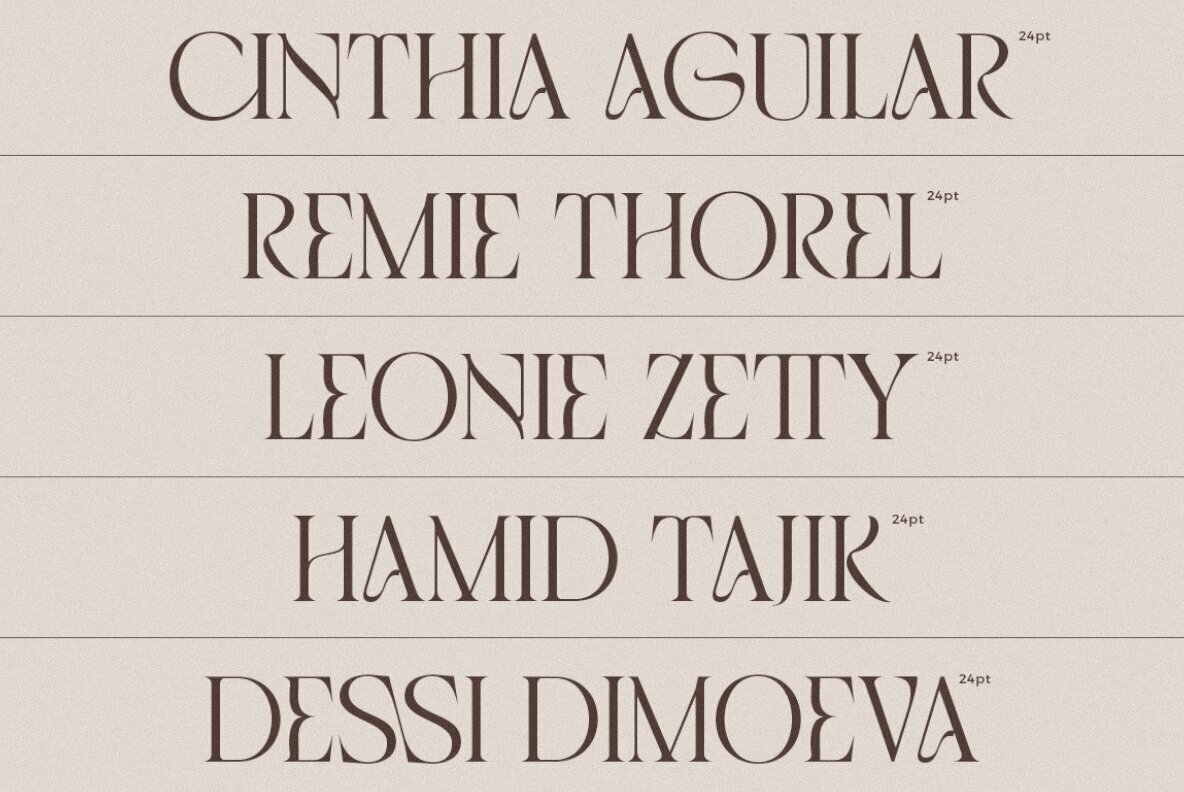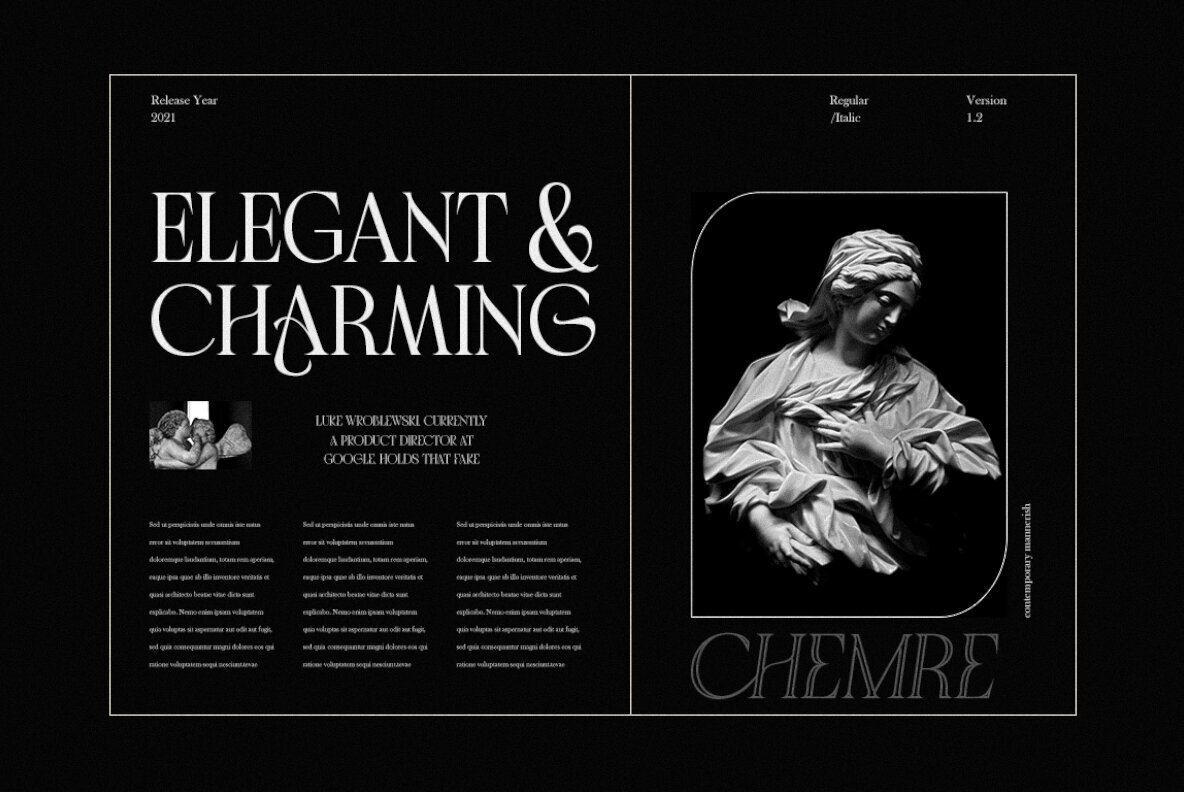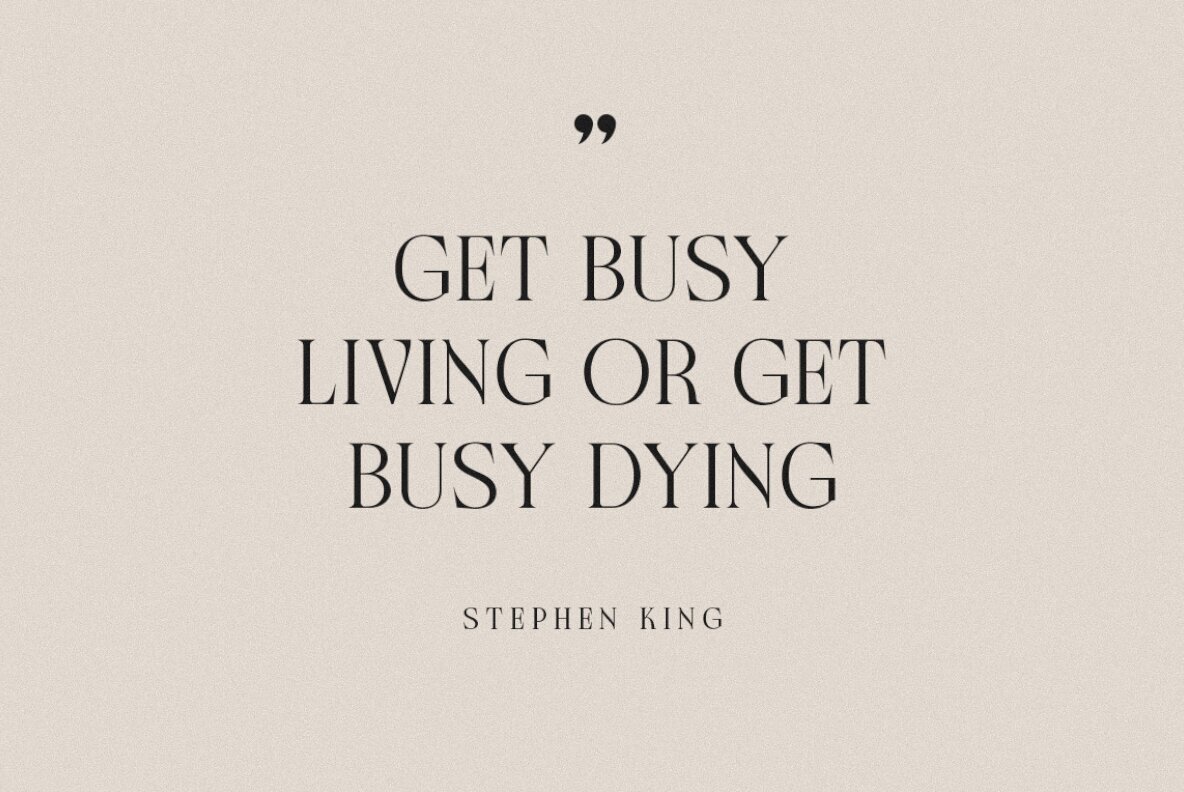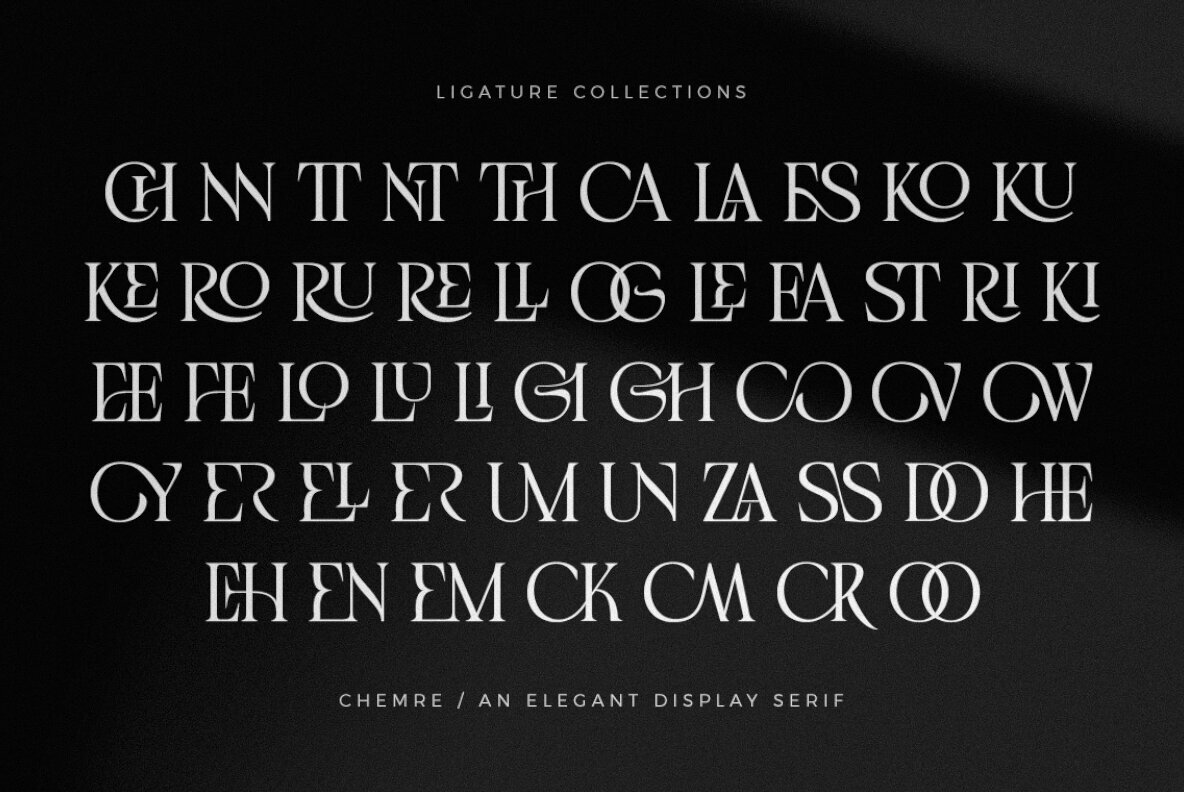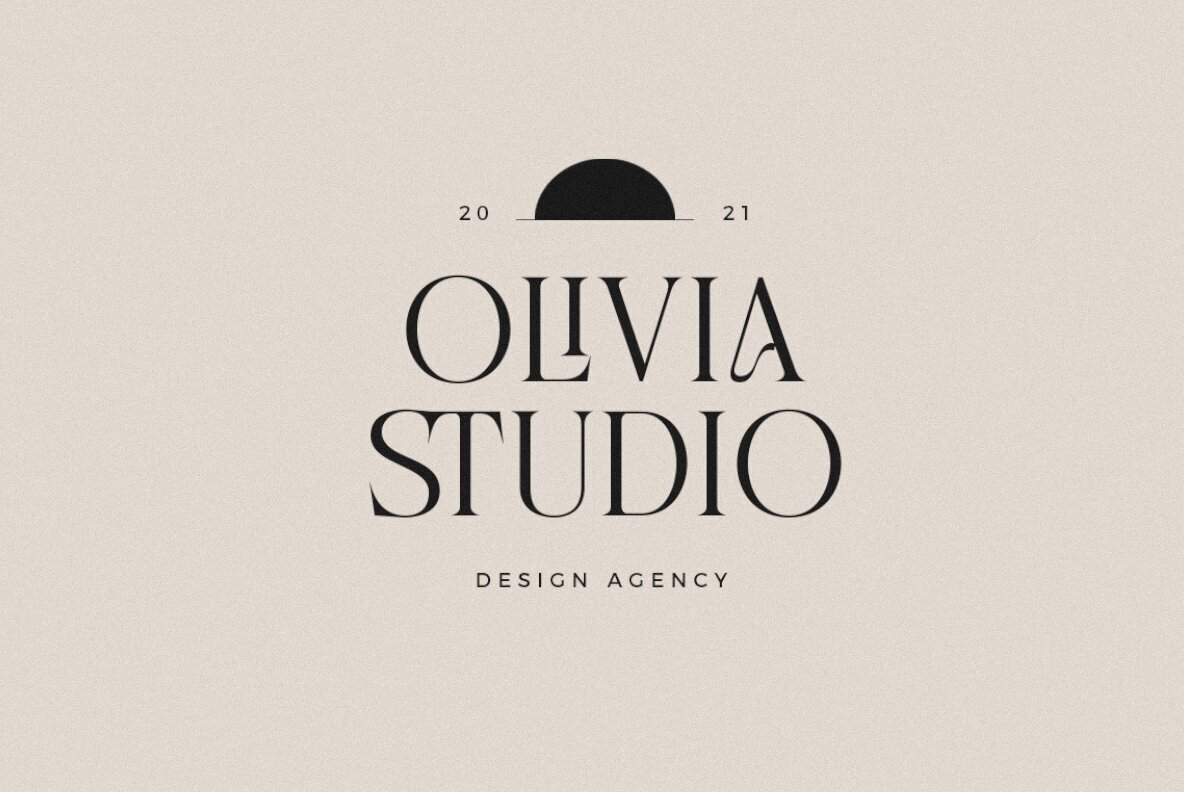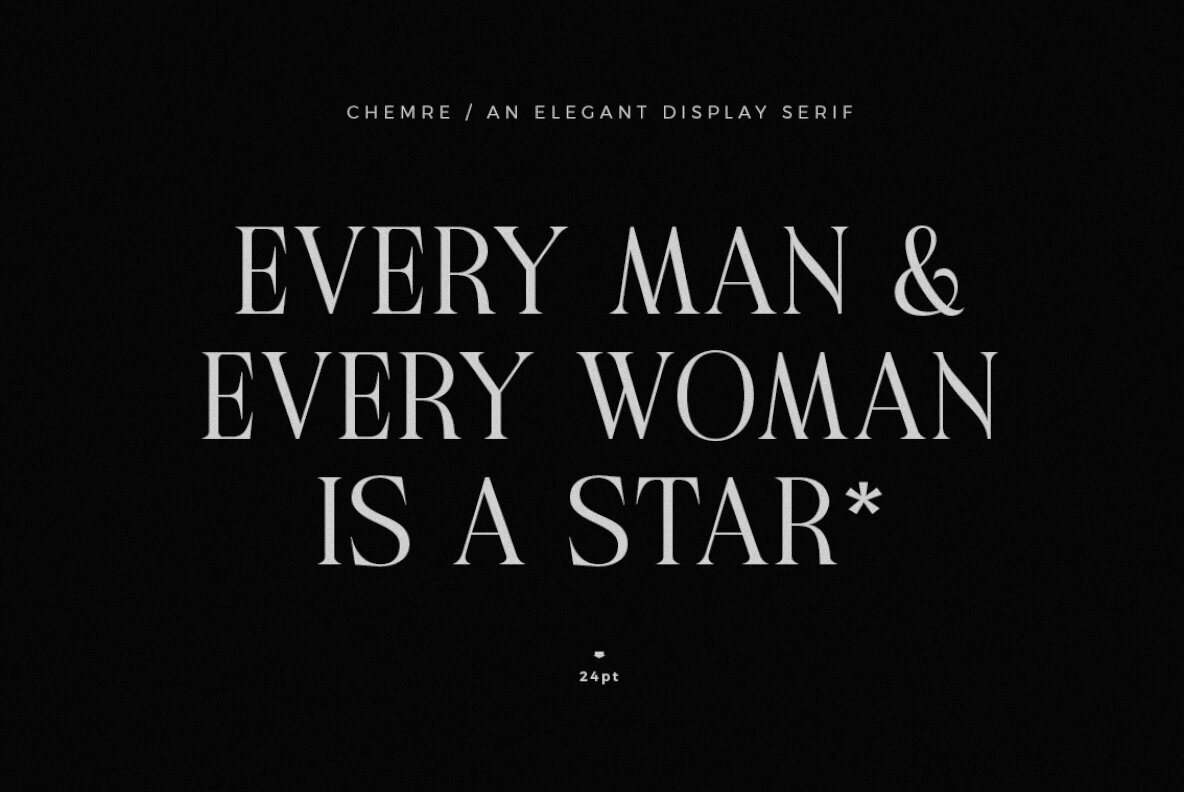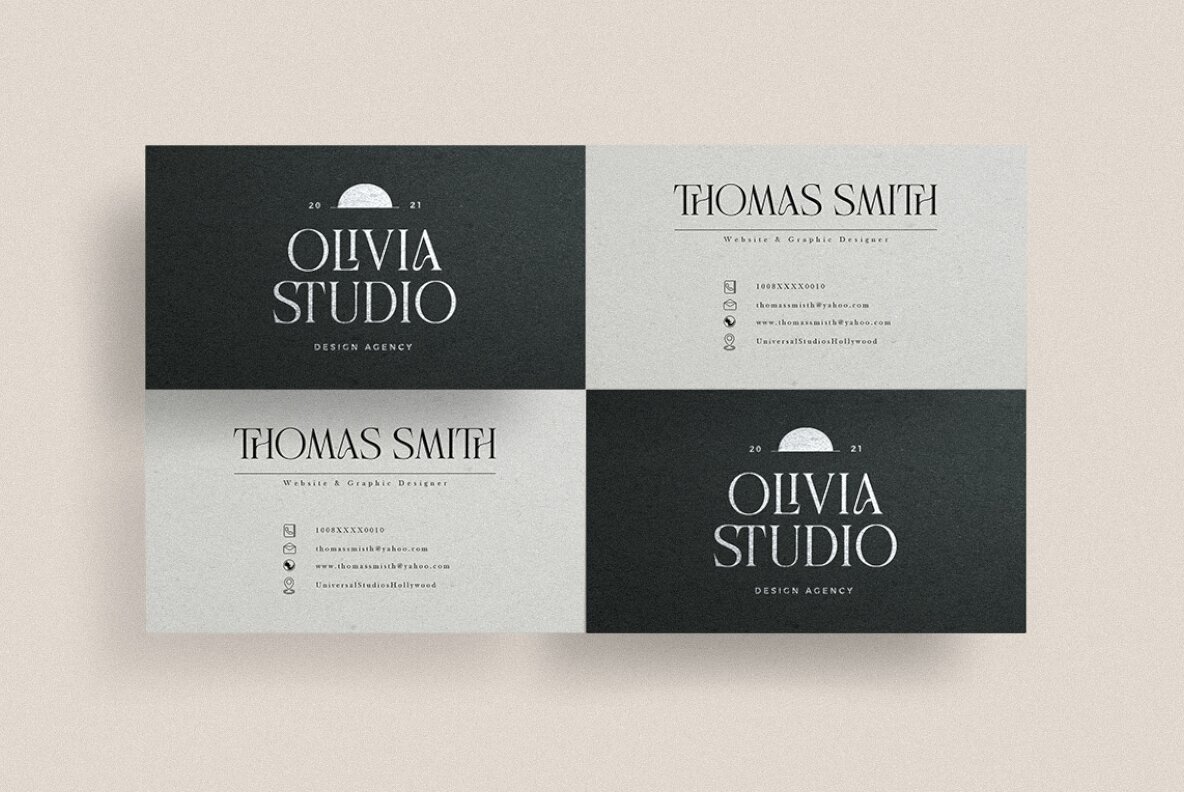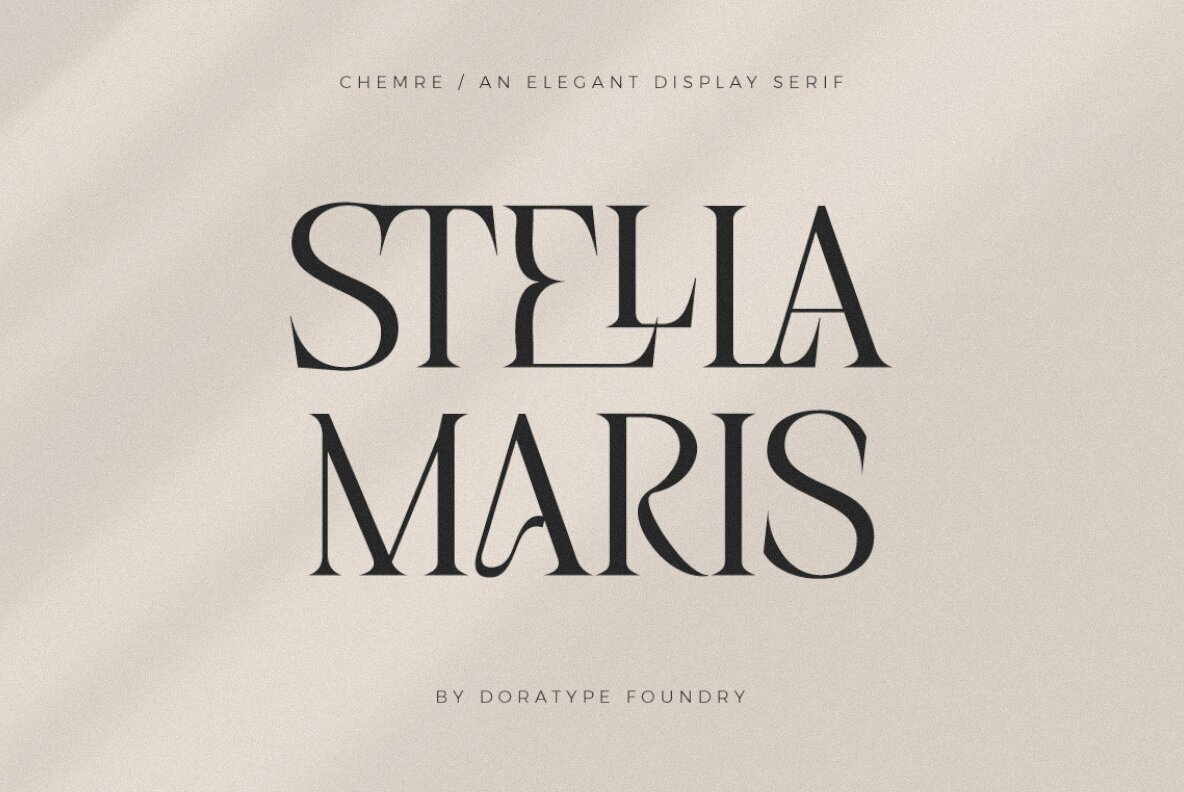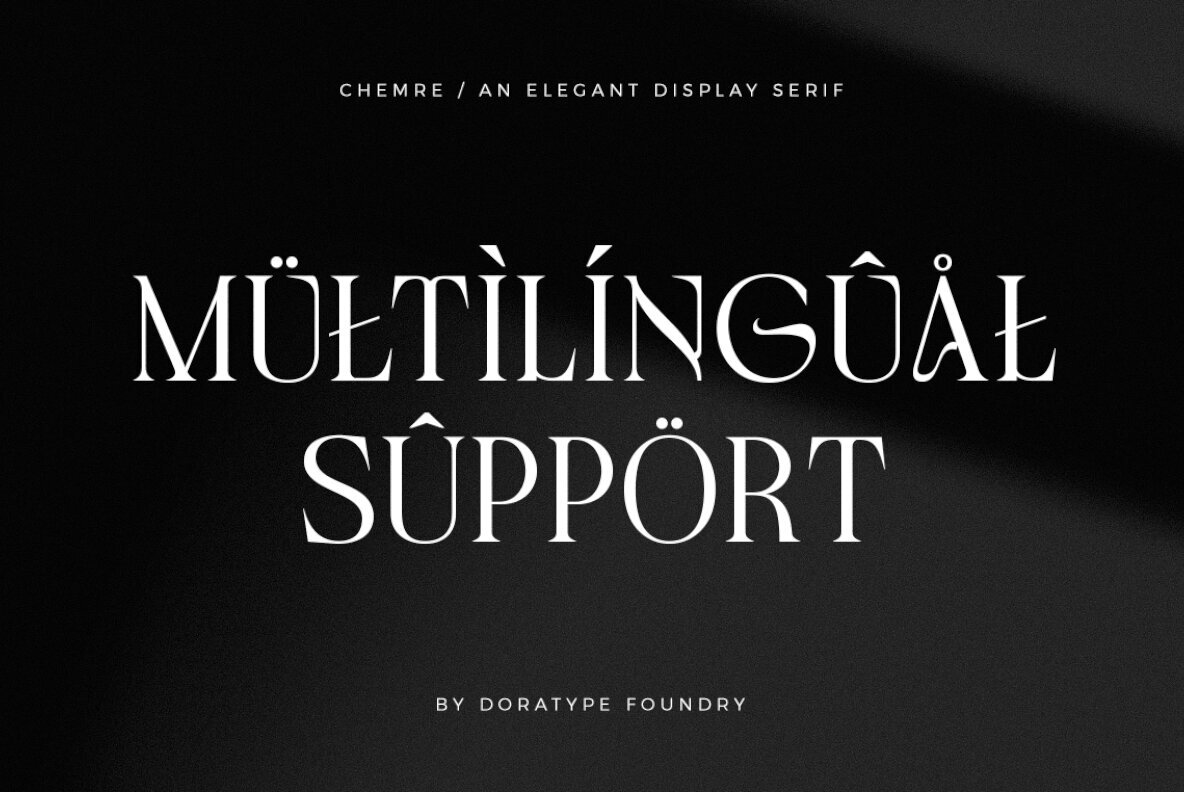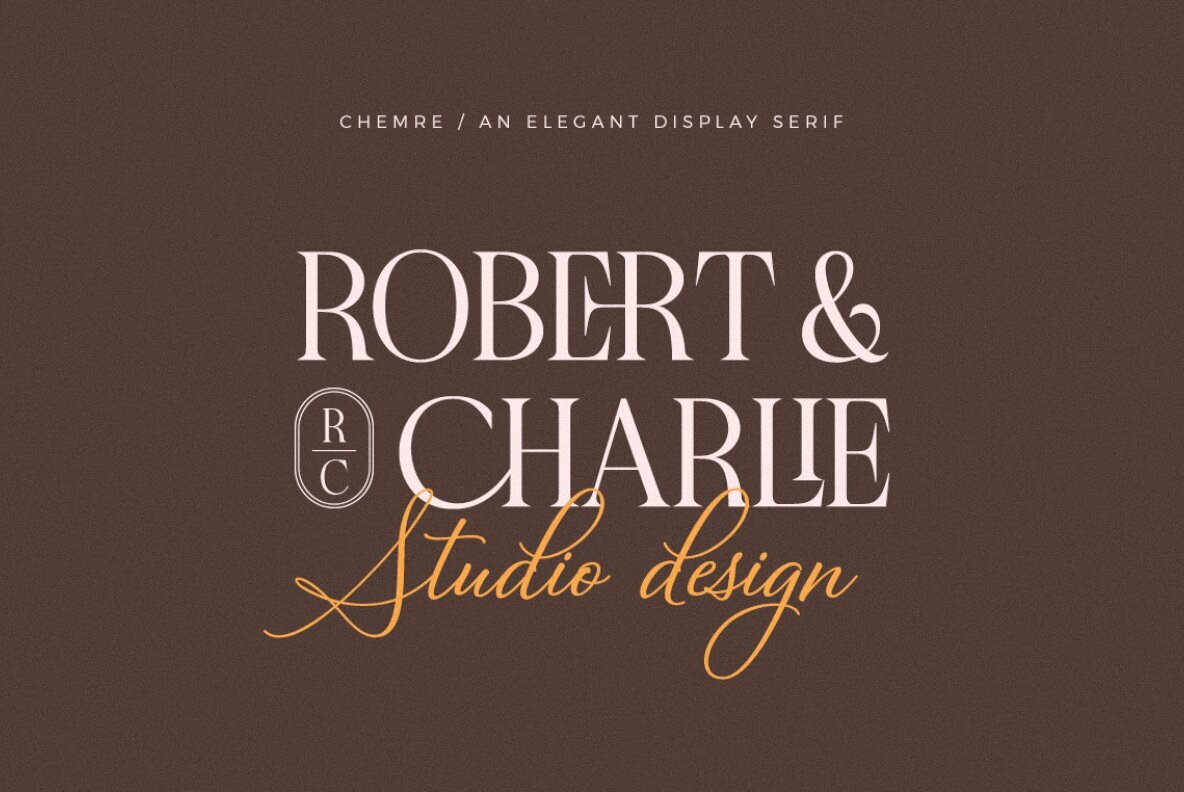
Chemre Font
Chemre is a luxurious Serif font that exudes modern elegance. Its high contrast between thick and thin strokes, accompanied by its all-caps mix of the same height makes for an exquisite combination to add flair to any typography project. Perfect for posters, packaging, branding or even titles and logotypes - Chemre's Regular and Italic Versions will give your design projects a unique style unlike anything else!